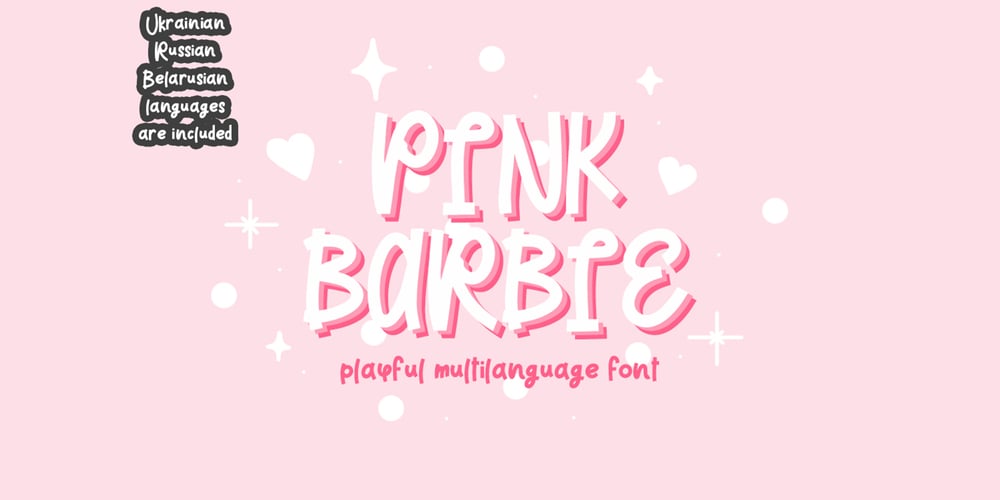
Pink Barbie Font Family was designed by Oksana Shudegova and published by OKSHUtypeCO. Pink Barbie contains 1 styles and family package options. PINK BARBIE Playful font- a new fresh handmade playful font.Very suitable for greeting cards, branding materials, business cards, quotes, posters, and more!This font are perfect for wedding postcard. Or you can create perfect and unique design of your logo, blog, stationery, marketing, magazines and more ๐ Multilingual OK CIRILLIC SUPPORT Ukranian/Russian/Belorusian THANK YOU!!!